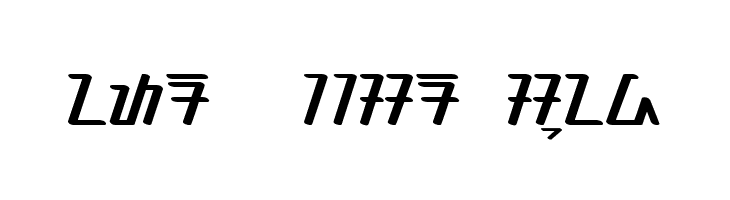
( The Autumn Rabbit - Louise Ross - www.theautumnrabbit.com )
A thin, elegant font with a modern and minimalistic design.
( Morgan - ritamorgan.wix.com/bhsmorgan#! )
A playful, informal handwritten font with irregular strokes and a casual vibe.
( Fonts by www.omniglot.com )
A bold, geometric font with a modern, futuristic style.
A bold, geometric font with a futuristic and industrial design.
( Vladimir Nikolic - www.coroflot.com/vladimirnikolic )
A bold, 3D-filled italic font with a dynamic and modern style.
( Vladimir Nikolic - www.coroflot.com/vladimirnikolic )
A bold, 3D font with filled centers and strong outlines, perfect for impactful designs.
( Vladimir Nikolic - www.coroflot.com/vladimirnikolic )
A decorative font with bold characters enclosed in ornate, gear-like frames.
( Vladimir Nikolic - www.coroflot.com/vladimirnikolic )
A bold, italic font with a dynamic and modern style.
( Vladimir Nikolic - www.coroflot.com/vladimirnikolic )
A bold, modern sans-serif font with clean lines and geometric shapes.